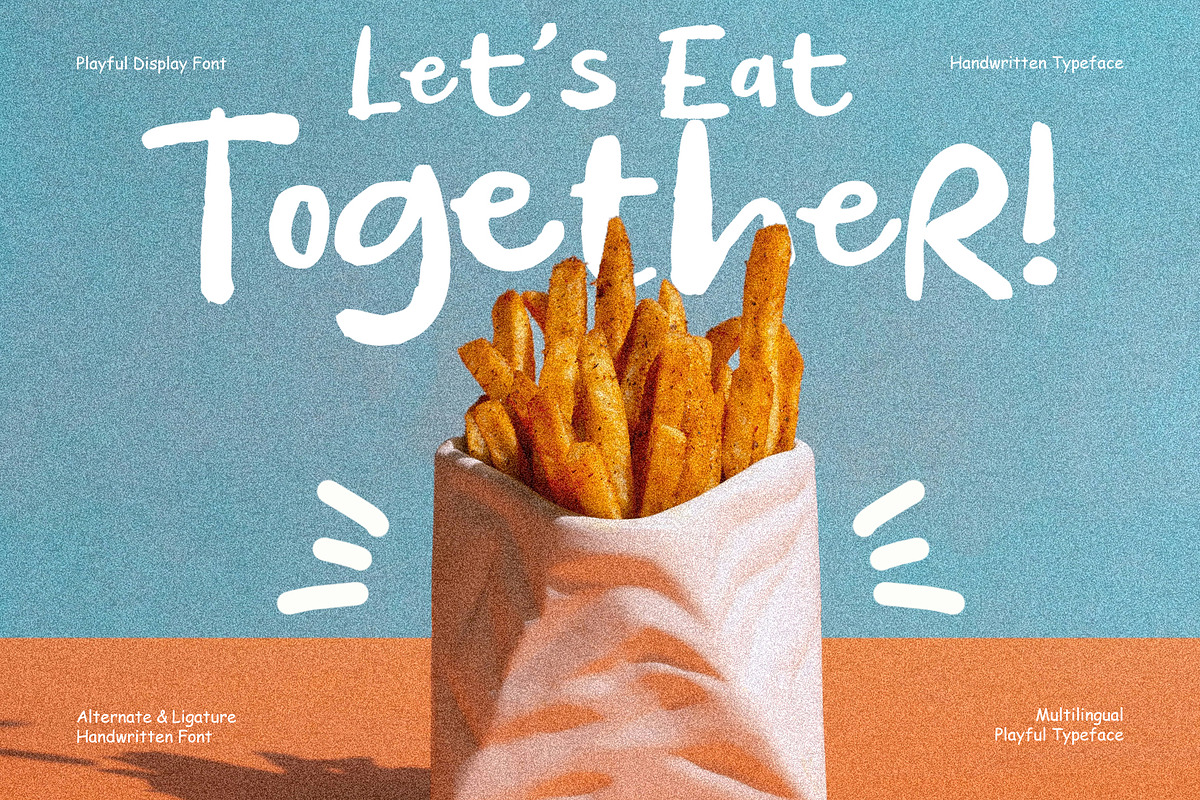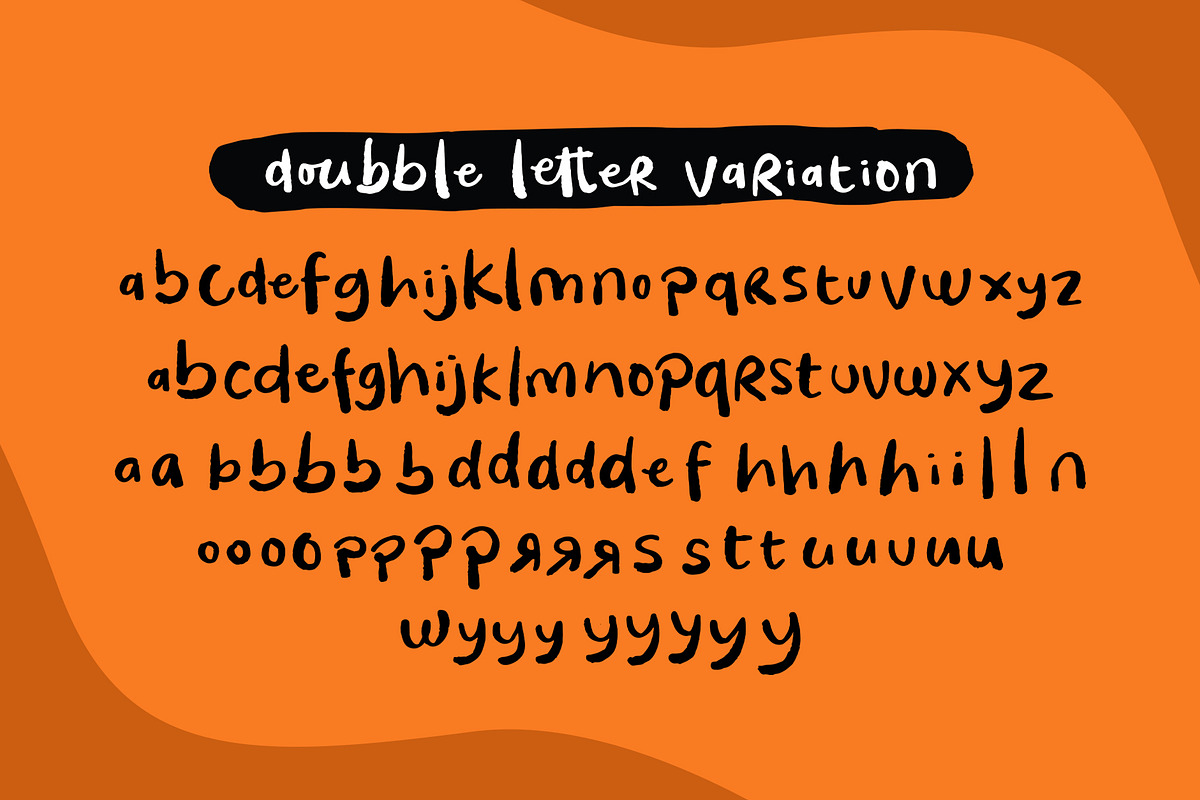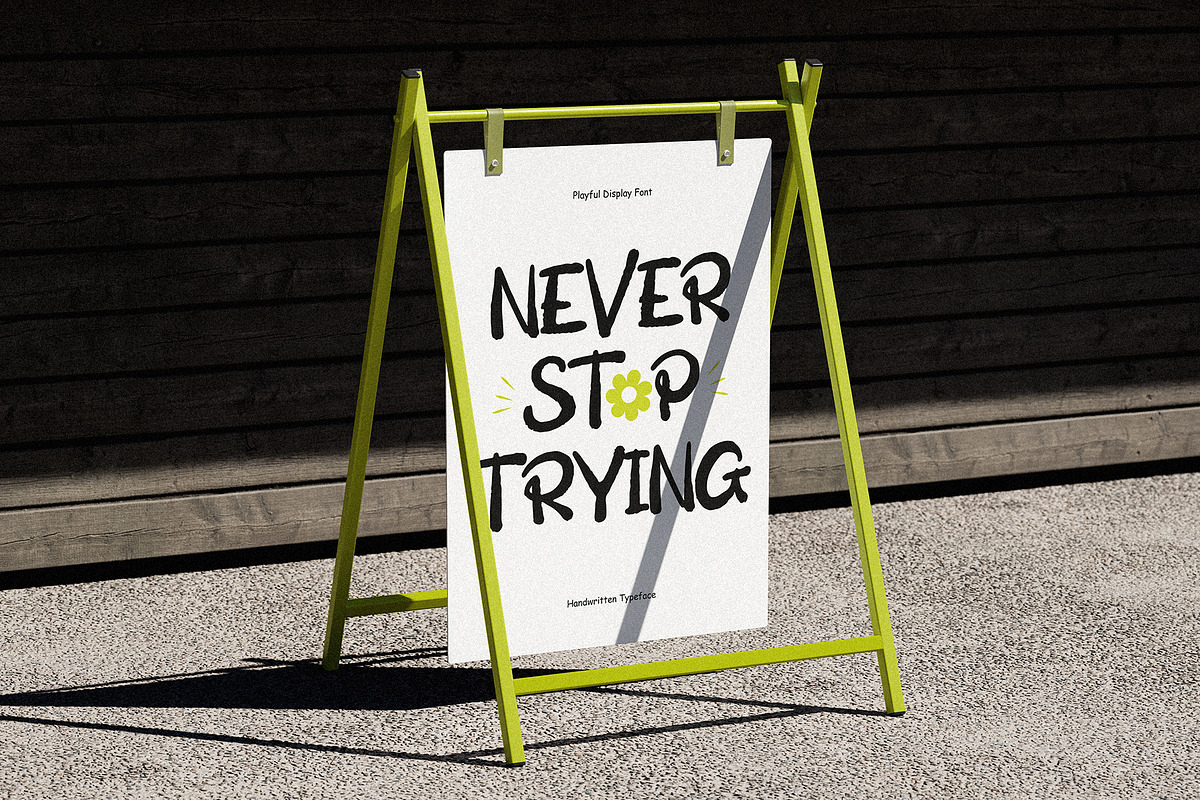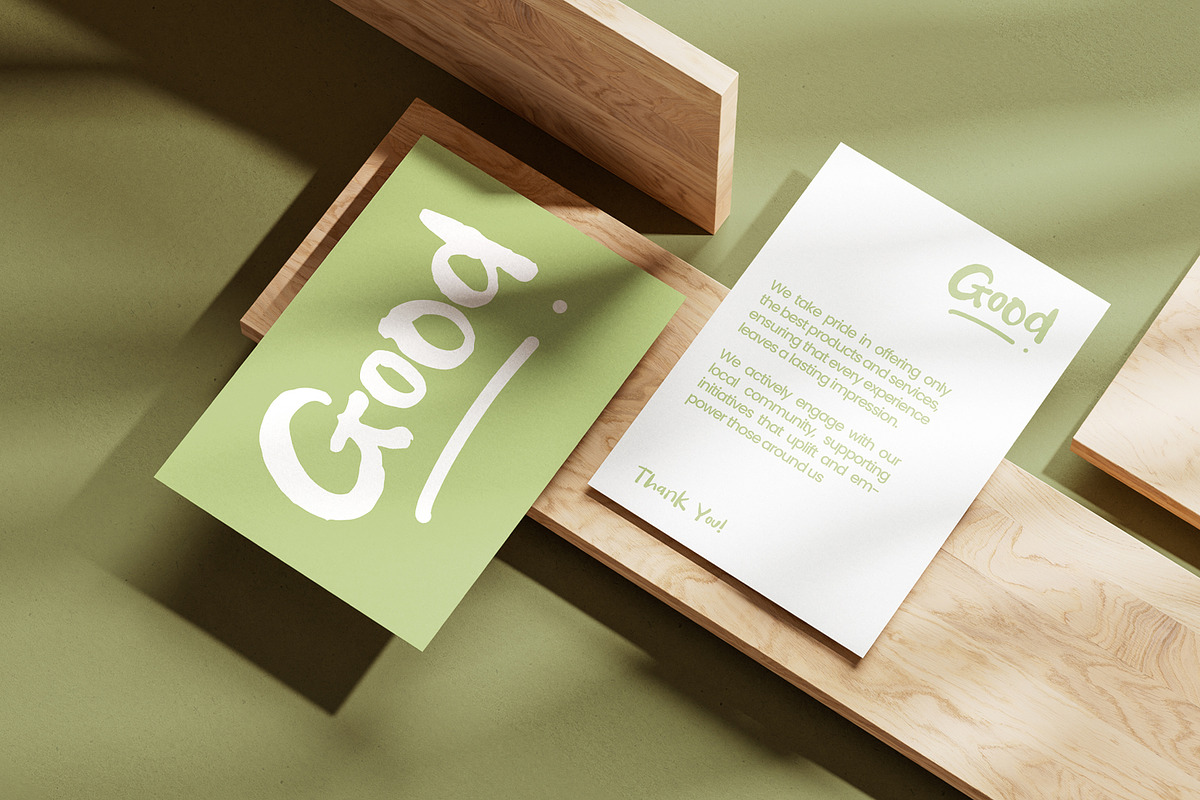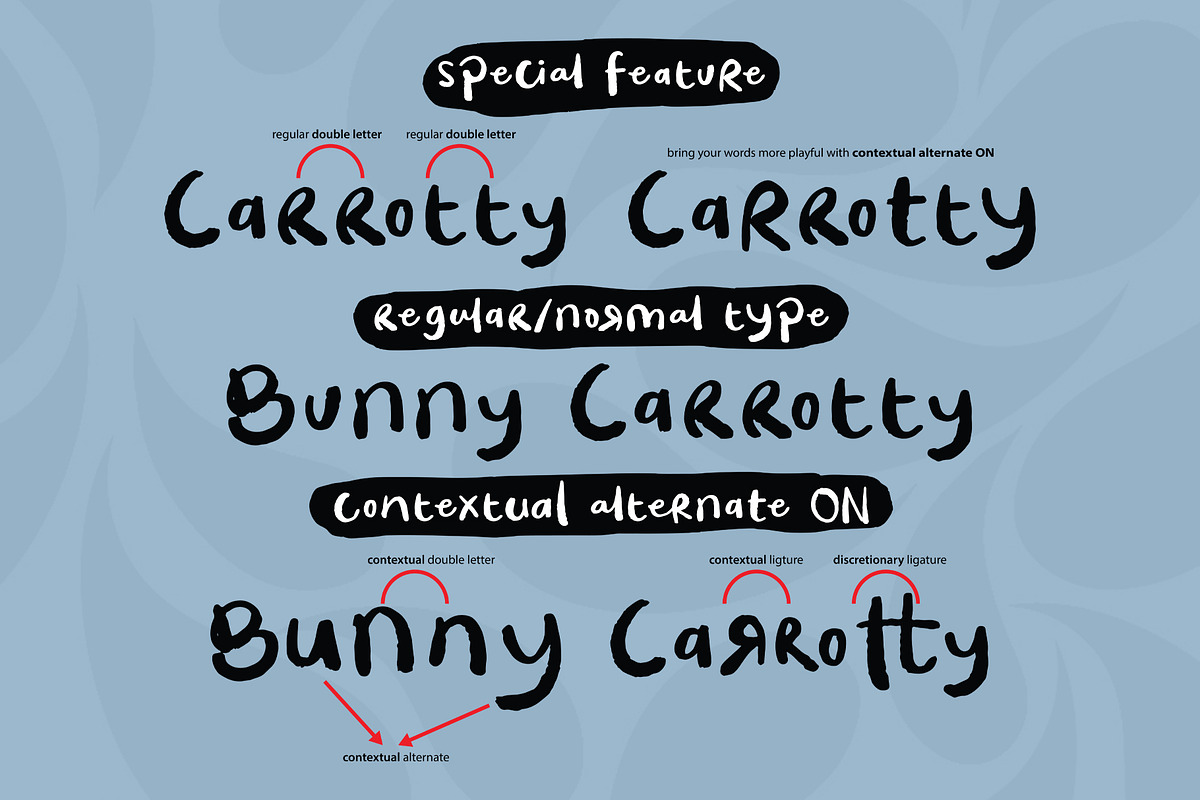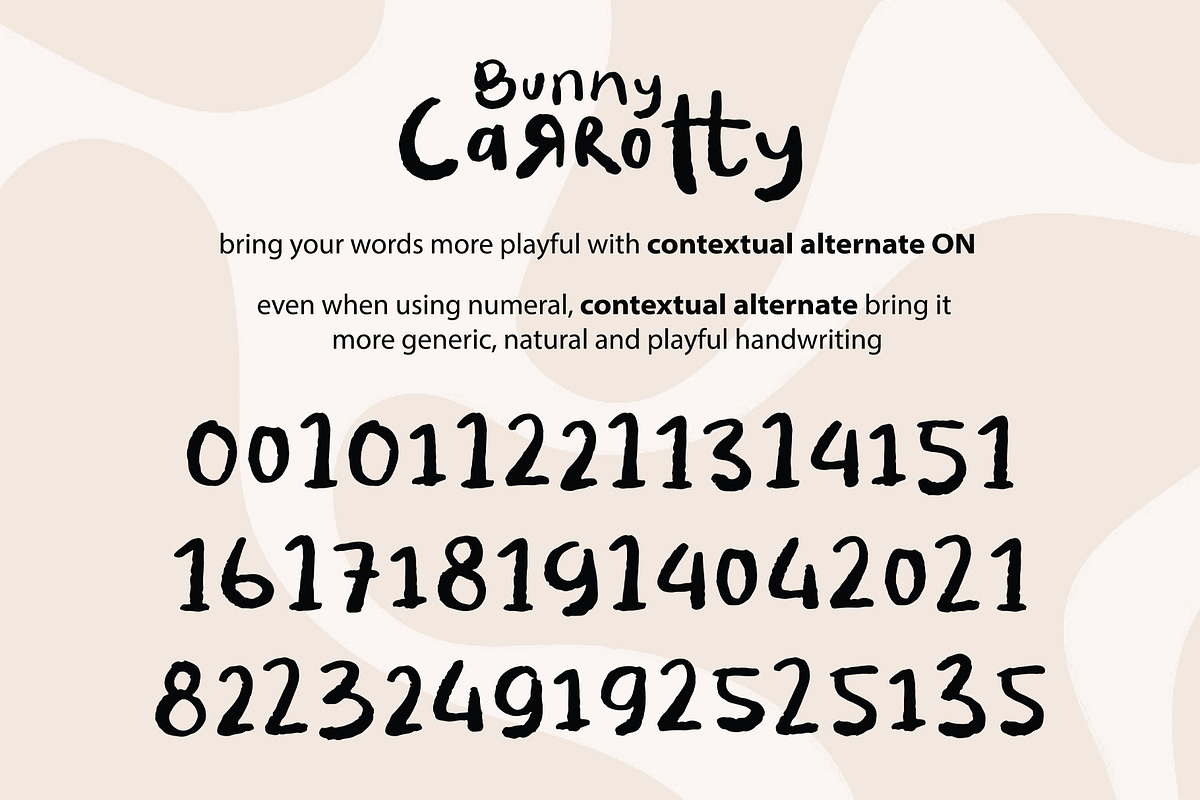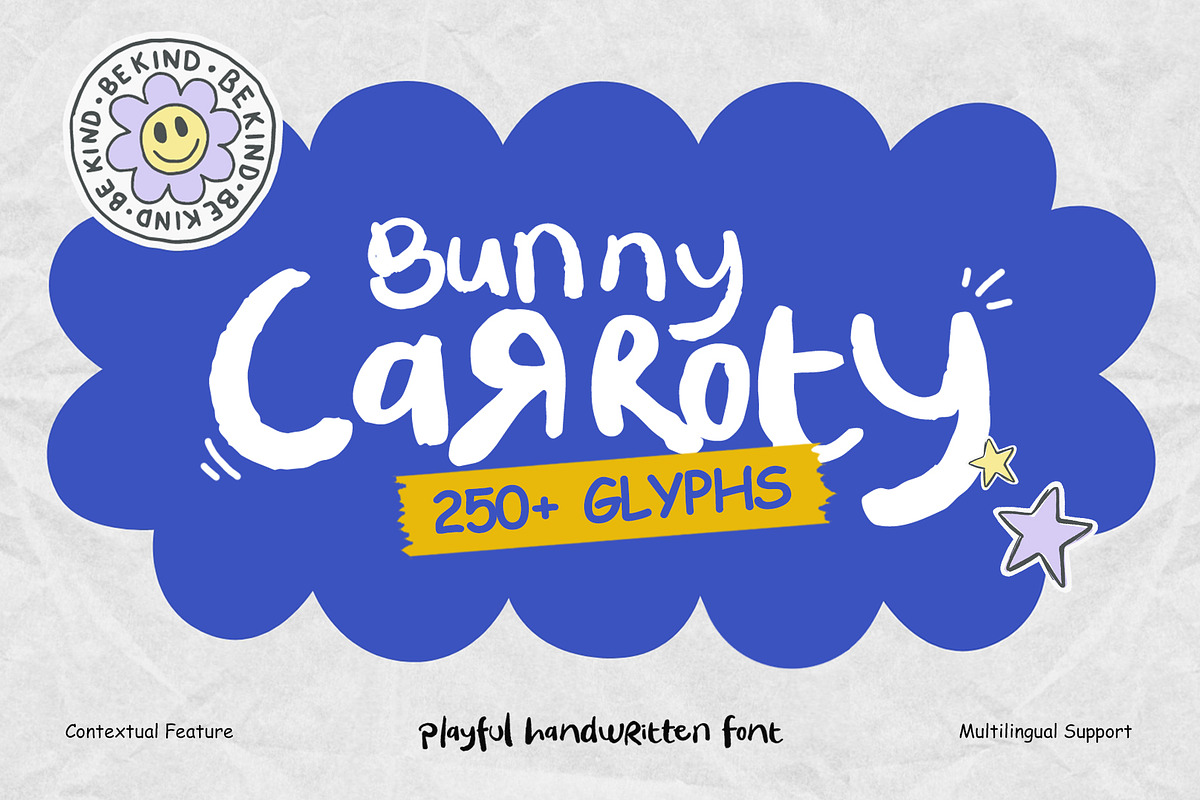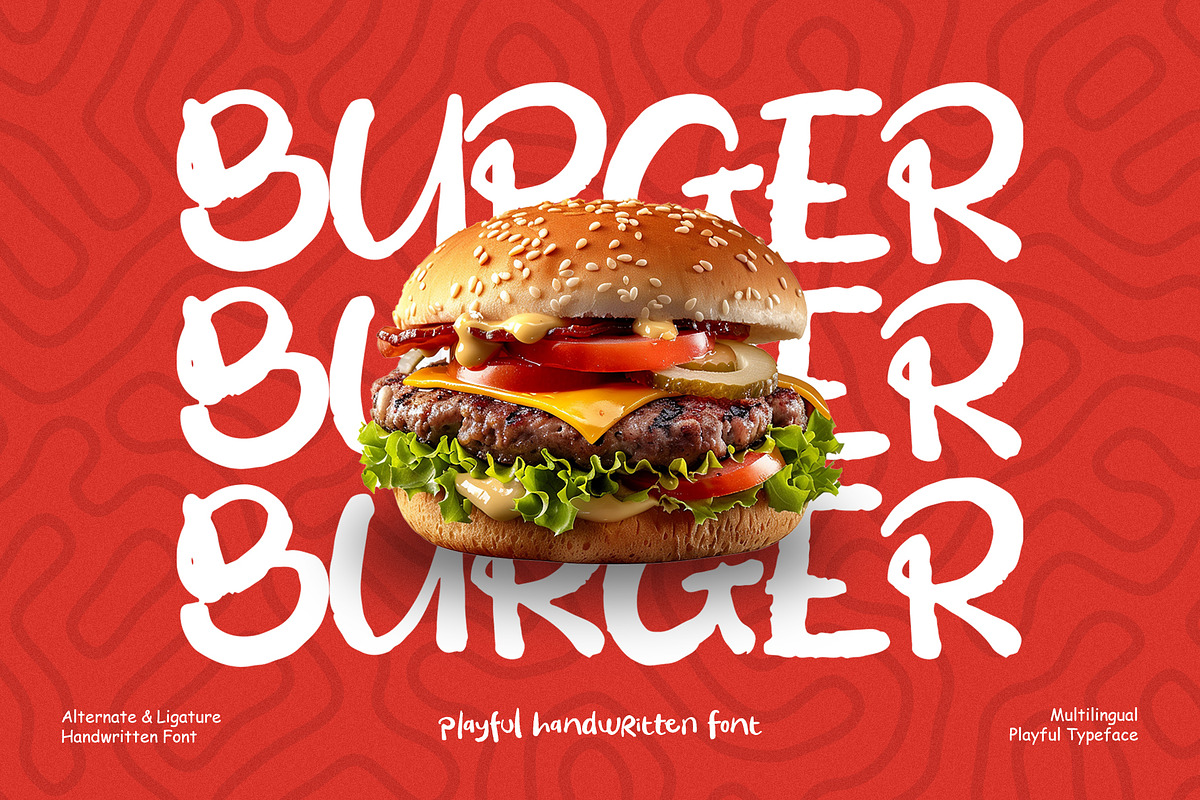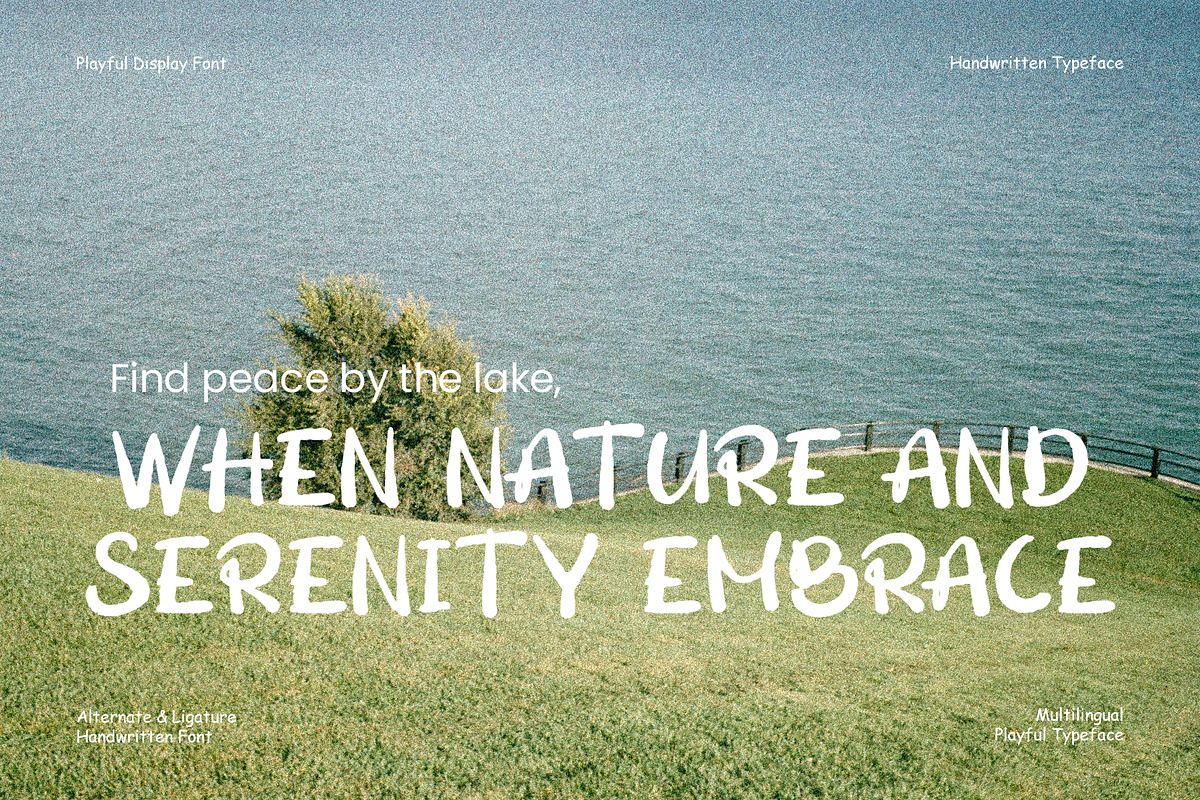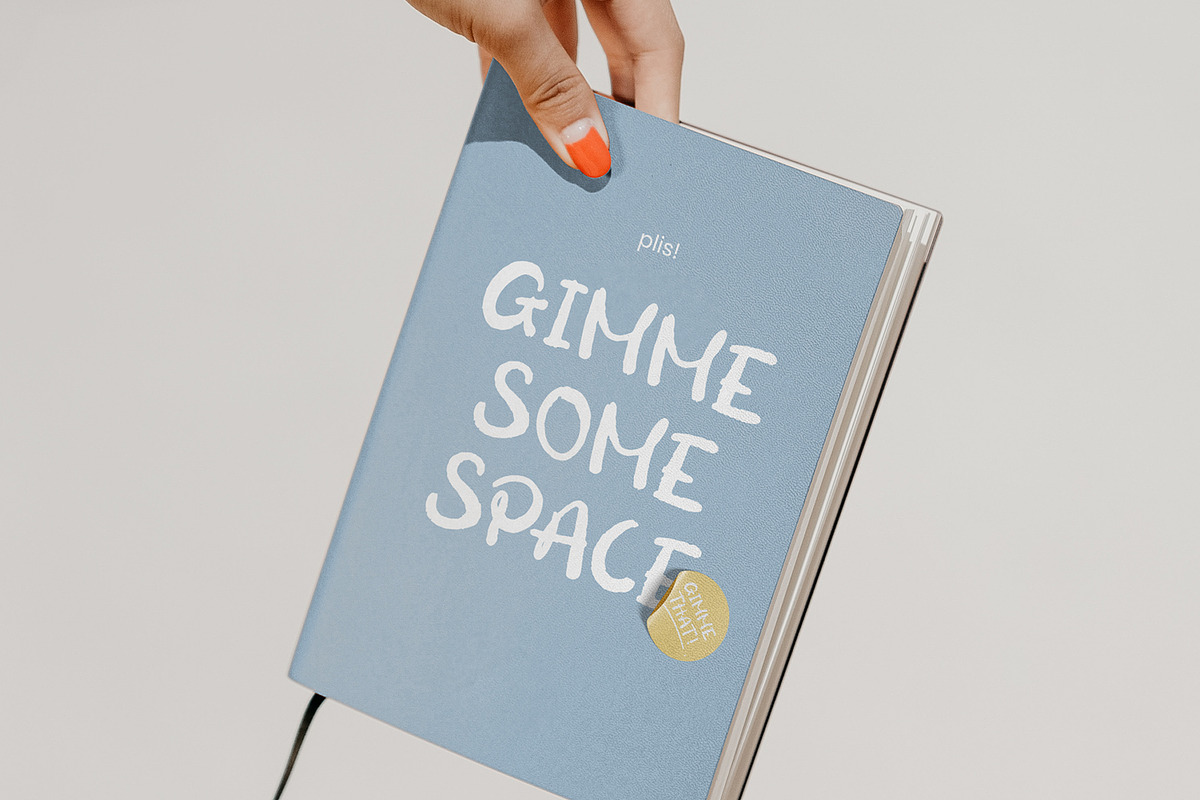
Bunny Carroty - Playful Handwritten
Bunny Carroty is a playful handwritten typeface designed with cheerful strokes, organic shapes, and a friendly handmade personality. Its irregular letterforms and expressive rhythm create typography that feels imaginative, approachable, and full of youthful energy.
Inspired by children’s drawings, classroom lettering, creative stationery, and cheerful character branding, Bunny Carroty is ideal for projects that need a fun and personal visual voice.
Bunny Carroty combines casual handwriting with a clean and readable display structure. Its rounded forms, varied stroke shapes, and naturally imperfect details make every word feel hand-drawn without becoming difficult to read.
The font includes more than 250 glyphs, contextual features, multiple ligatures, numerals, punctuation, and multilingual characters. These features provide greater variety for creating natural-looking words, playful headlines, and distinctive brand identities.
Use Bunny Carroty for large titles, short phrases, character names, children’s products, learning materials, packaging, invitations, posters, and digital content.
Playful handwritten display style
More than 250 glyphs
Friendly and childlike personality
Natural handmade irregularities
Rounded and expressive letterforms
Strong readability at medium and large sizes
Ideal for headlines, logos, titles, and short phrases
Works beautifully with doodles, stickers, and character illustrations
Easy to pair with rounded sans serif or simple serif fonts
Suitable for children’s, educational, and playful branding projects
Stylistic Alternates: alternate character forms may be included through contextual features, but the exact supported letters are not clearly identified in the supplied preview
Ligature Pairs: the preview confirms multiple ligatures, but these specific 18 combinations are not visibly confirmed: st, br, cr, ct, fr, ist, op, or, ox, th, Tr, tt, wn, ff, fi, fl, ffi, ft
Multilingual Support: Western European characters with diacritics, including À, Á, Â, Ç, É, Ñ, Ø, Ü, and more
Use the font at medium or large sizes to highlight its playful handwritten character. It works best for titles, logos, character names, product names, posters, and short messages rather than long paragraphs.
Pair Bunny Carroty with a clean rounded sans serif font for body copy, instructions, captions, and supporting information.